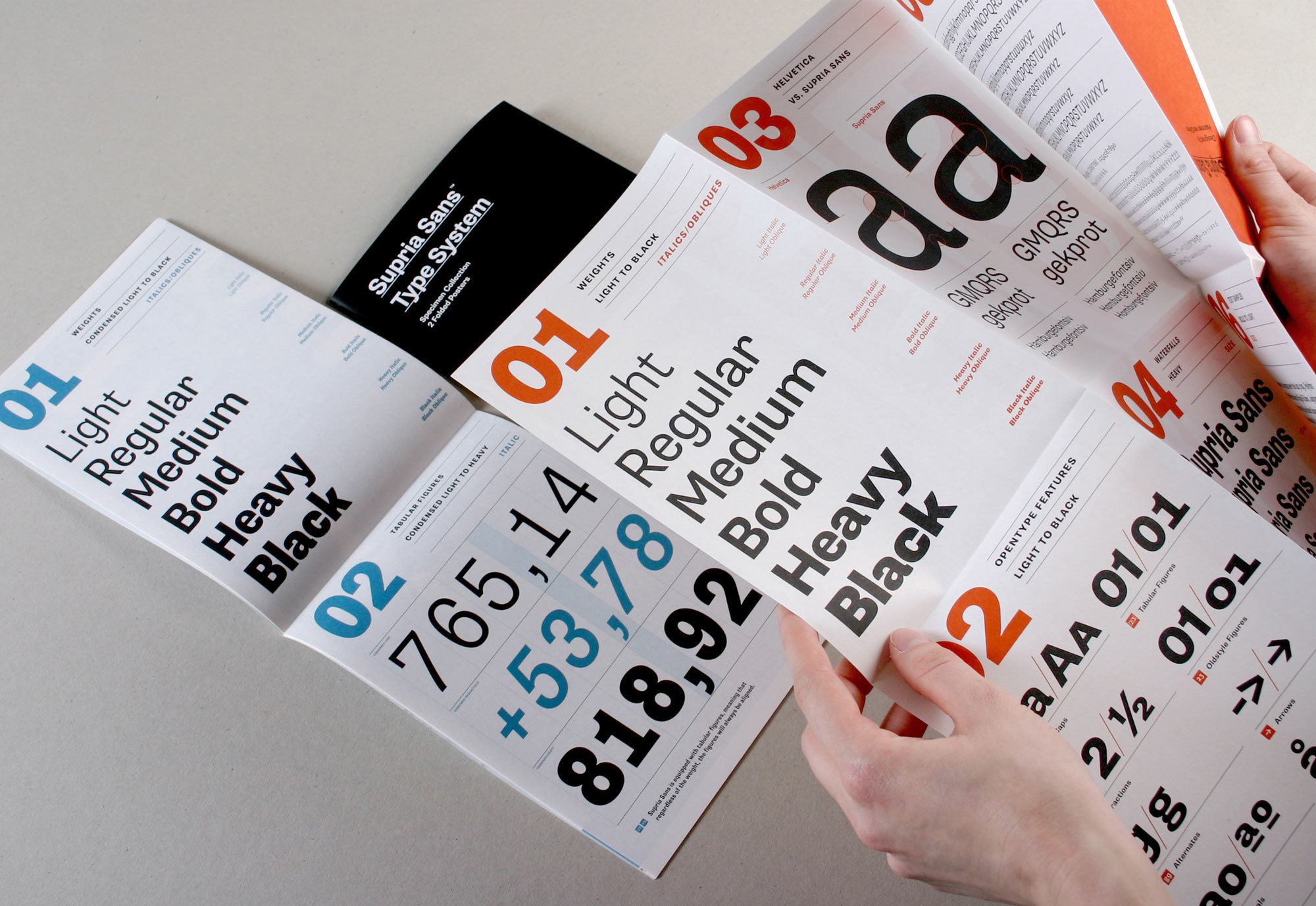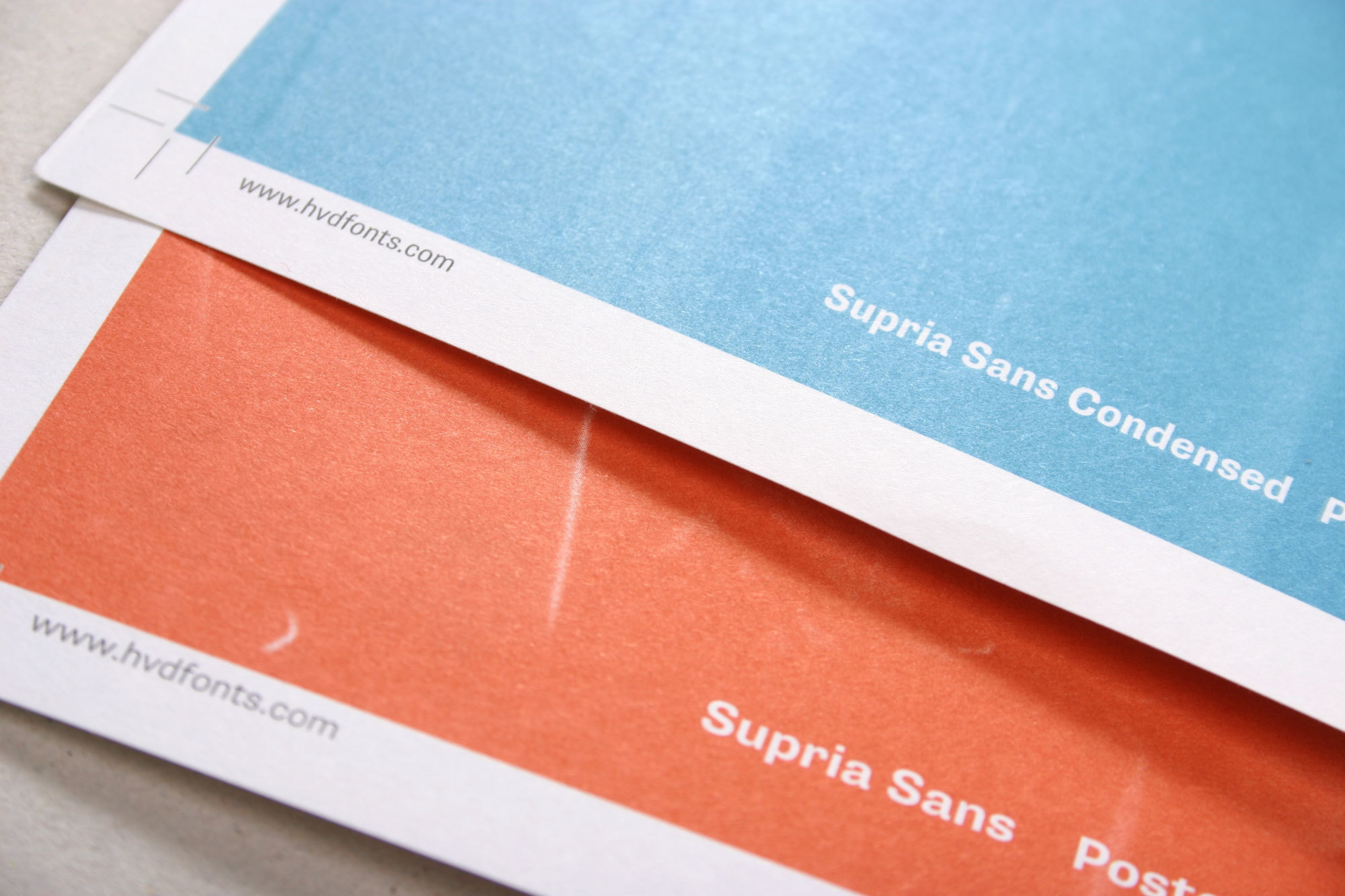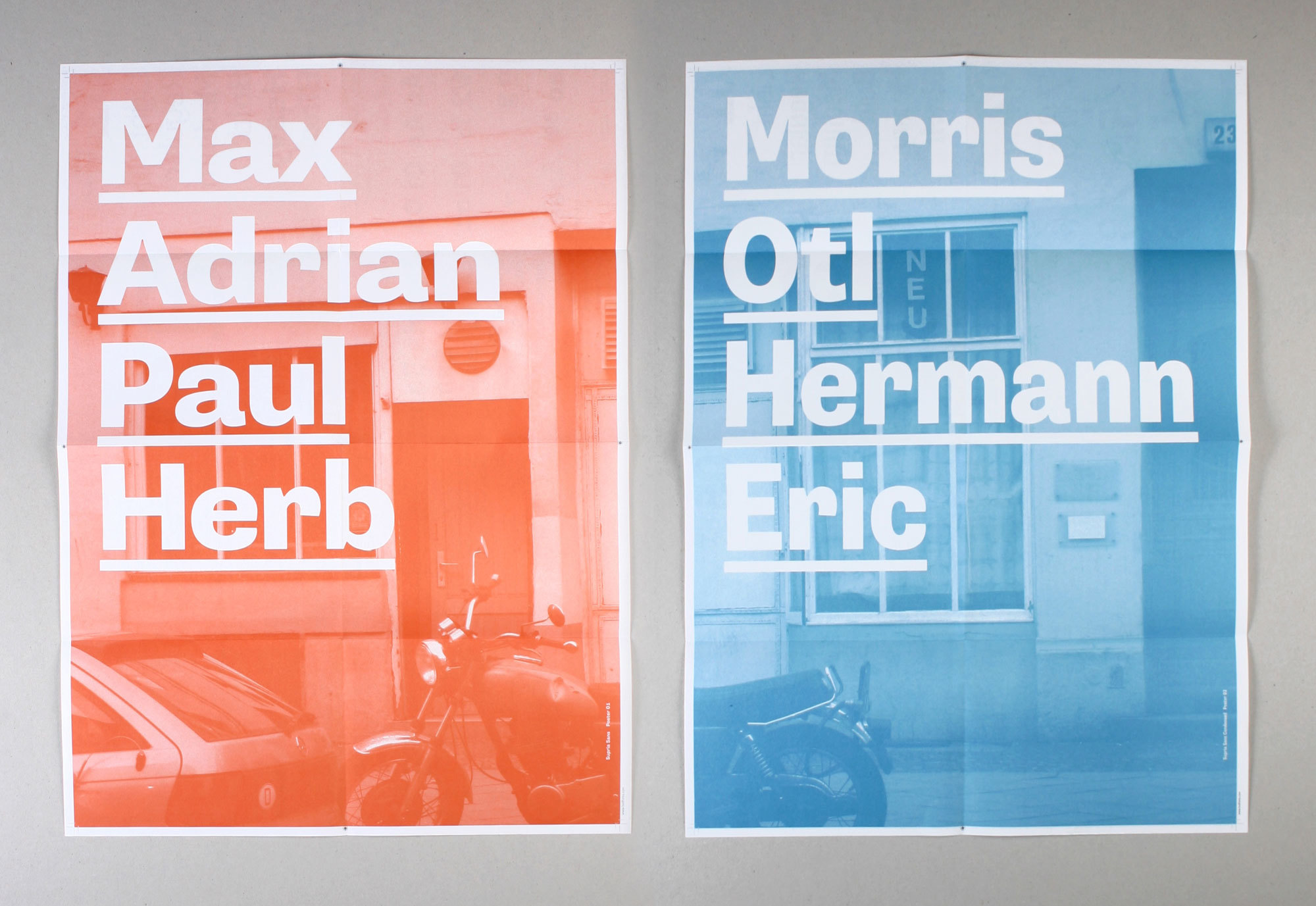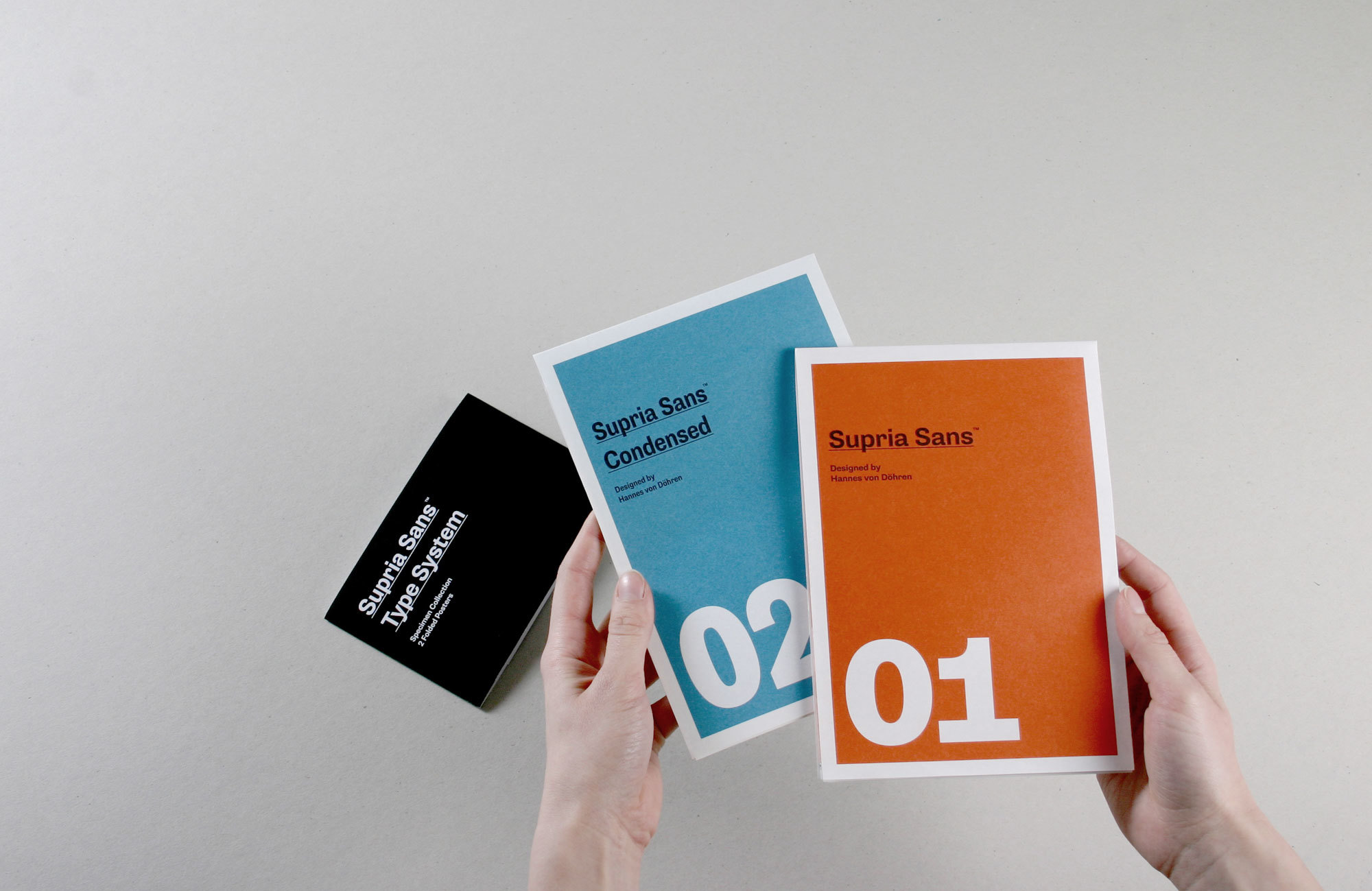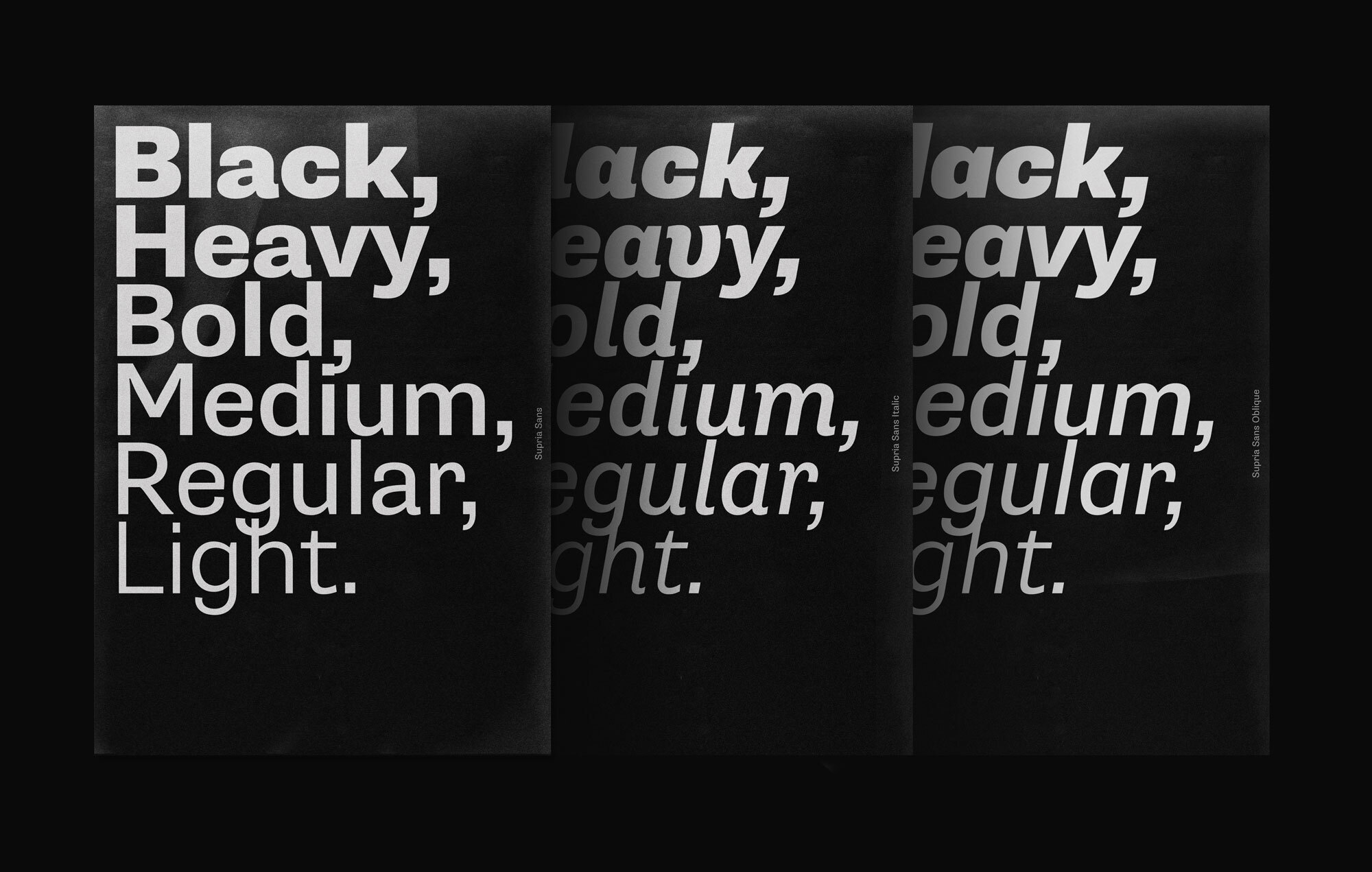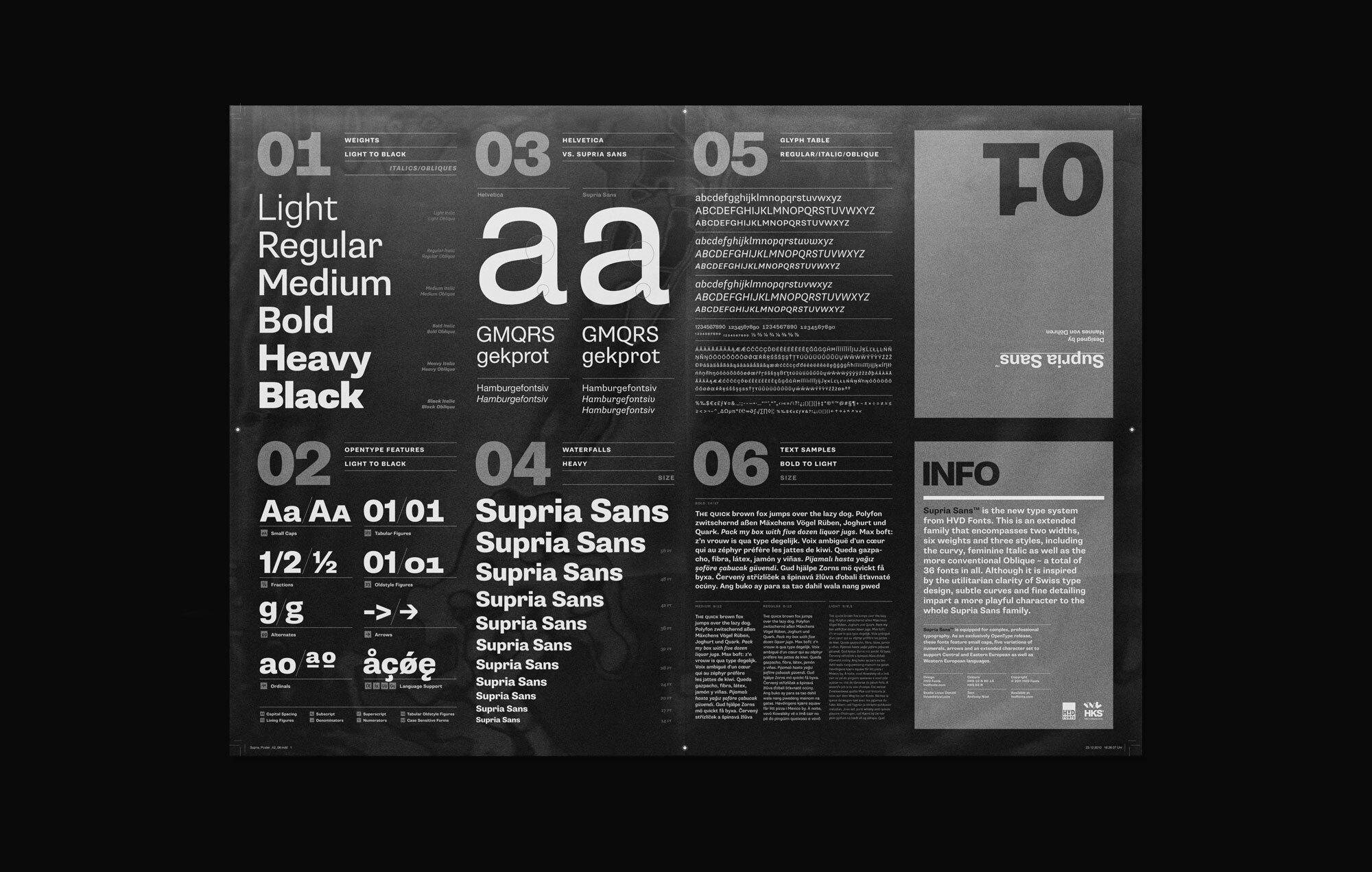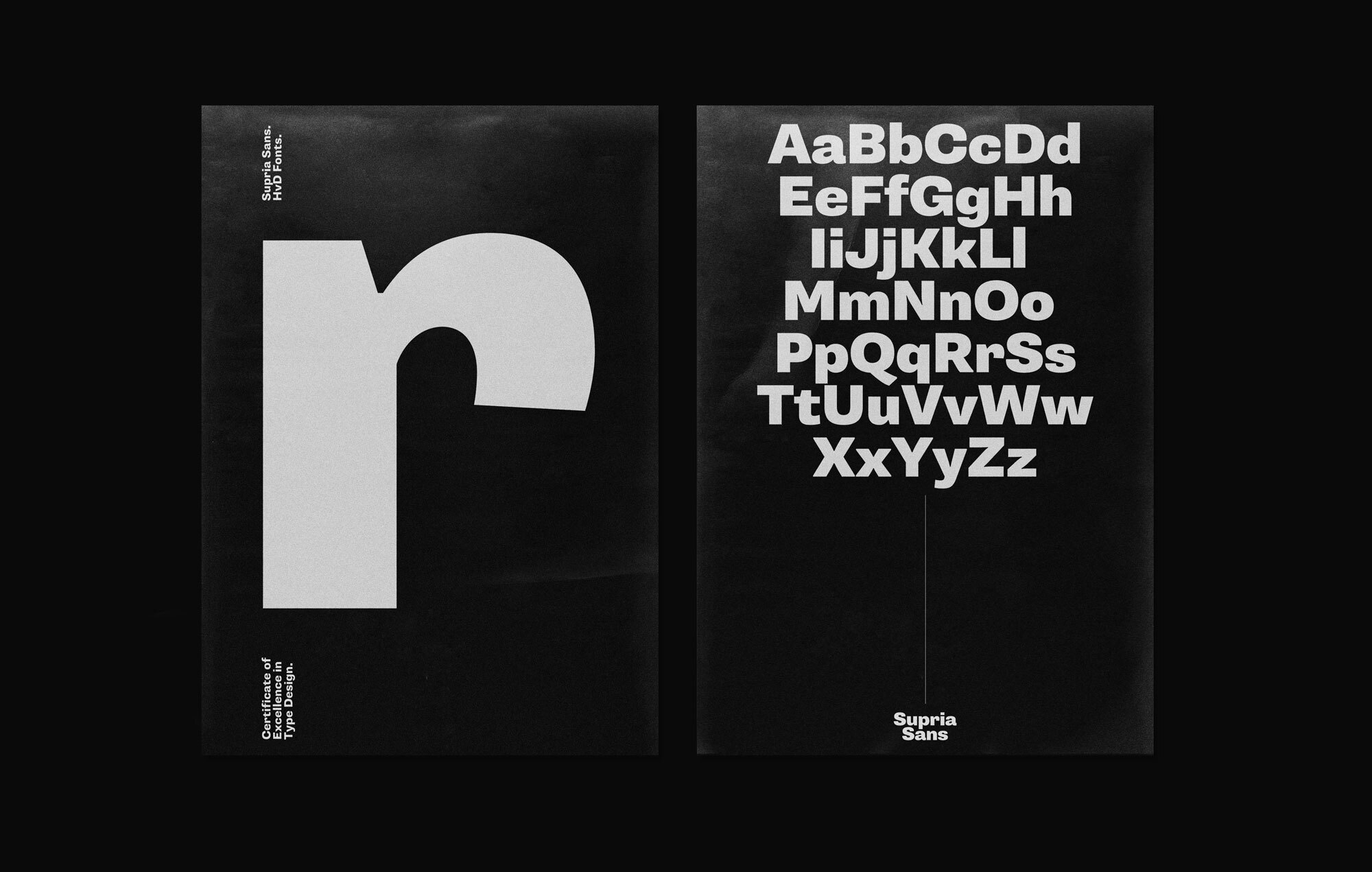
Supria Sans
A type system with true italics and true obliques.
Supria Sans and Supria Sans Condensed is an extended family of 36 fonts designed by Hannes von Döhren. It contains two widths, six weights and three styles, including the curvy, feminine Italic as well as the more conventional Oblique. Although it is inspired by the utilitarian clarity of Swiss type design, subtle curves and fine detailing impart a more playful character to the whole Supria Sans family.
Ready for work.
About Supria Sans
The design has just the right amount of character to be memorable and unique but also restrained enough to remain thoroughly useful. Bypassing the polished rationality of Neo-Grotesques, it builds upon the hearty solidity of 19th-century faces, a heritage revealed in the curled-in jaws of glyphs like the ‘C’ or the faucet-shaped ‘r’. While some details seem quite charming, the design never gets coquettish. With its blunt inktraps, tight curves, and solid weight, Supria is ready for work.
Despite this crafty atmosphere though, its rolled-up sleeves don’t get uncomfortably sweaty. Apart from older roots Supria also appears informed by recent, softer approaches to sans-serif design, and steers clear of the sharp, sometimes clumsy vintage chic recently en vogue. With its idiosyncracies tamed just enough, this design is firmly anchored in a contemporary context. There is definitely no smell of mothballs here, but rather a fresh breeze of menthol. I’ve found Supria to feel decidedly fresh, especially when set in text, and more clear and angular than its details might suggest in large display settings.
A design that harmoniously balances such diverse stylistic factors promises to be excitingly versatile. This, along with Supria’s impressive range of styles, including a Condensed variant and the all-too-rare choice of two italics (a curly Italic – likely too cute for some applications – and a more rigid Oblique), makes it an attractive candidate for more complex typographic projects too. A winner at the 2011 TDC2 competition, Supria Sans altogether strikes me as a convincingly versatile, mature, and well-conceived face.
OpenType Features – or what else you can do with it, besides designing your next corporate design.
A font of today’s needs has to include more than just the alphabet and some punctuation. Besides a big number of accented letters, making sure that the typeface has a good language support, a font should include several features for excellent typographic work joining forces with the layout applications of the time and of course the user. Here is a selection of what this font family has to offer under the hood.
Small Caps
Small Caps are uppercase characters set at the same height and weight as the lowercase characters or text figures. They are used in text emphasize or typographically differentiate passages beside the italics. Professional designed Small Caps are not simply scaled-down versions of the capital letters – they are designed to work with the lowercase letters and have the same stroke weight.
Talking several languages
Alternates
Besides the standard letters a font sometimes contains several versions of a letter called alternates. You can exchange the alternate with the standard letter by selecting it through the Opentype feature panel and every letter of the stylistic set will be exchanged. Often this results in a totally different optical appearance of the typeface.